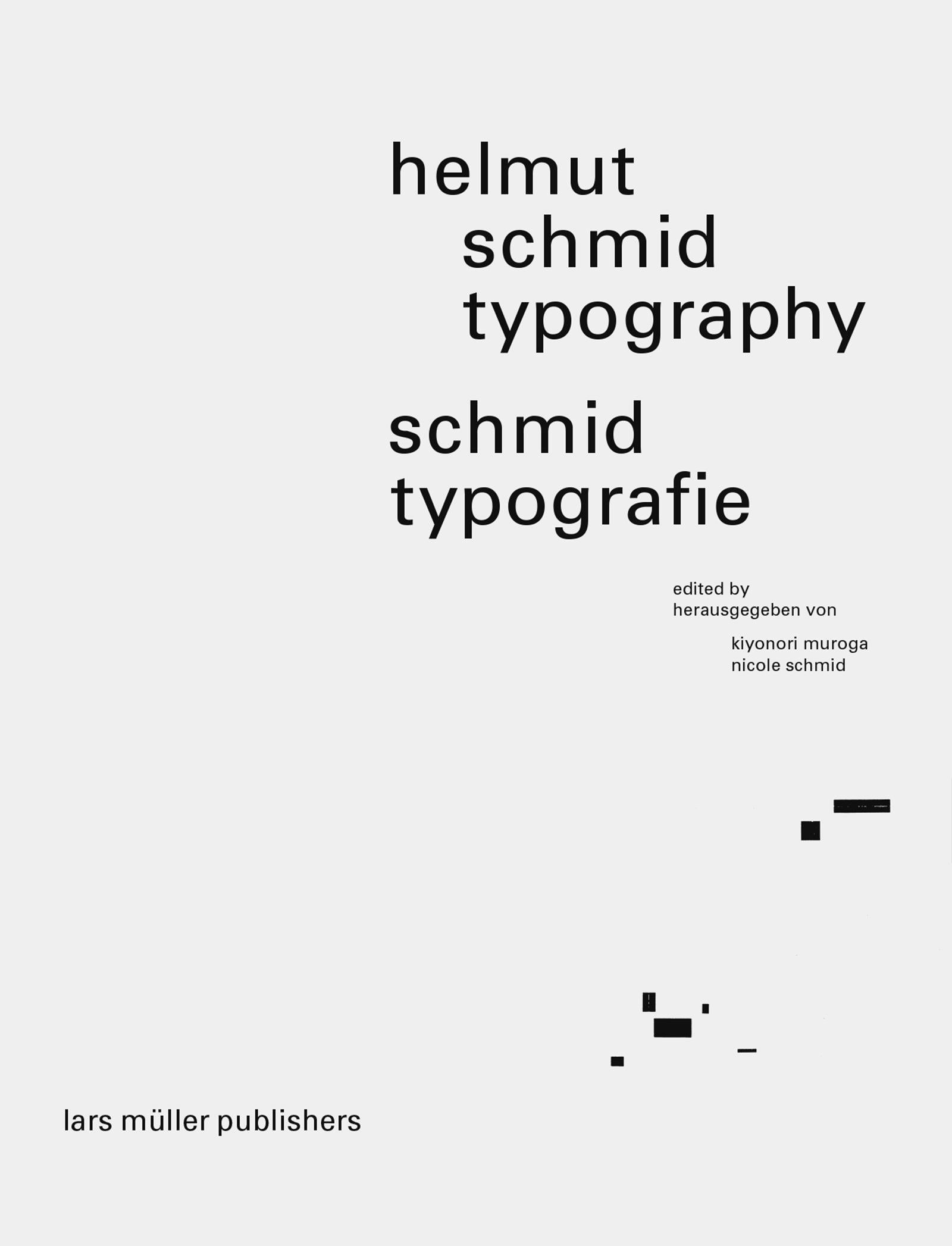
Helmut Schmid Typography - Helmut Schmid Typografie
The Austrian typographer Helmut Schmid was a master of his craft. He put his own spin on Emil Ruder's teachings at the Basel School of Design while remaining faithful to the principles of clarity, simplicity and elegance. Blending eastern and western influences, Schmid honed his skills and put them into practice in the fields of editorial design, packaging of ethical drugs and visual identity of brands such as Pocari Sweat sports drink (Otsuka Pharmaceutical), Maquillage (Shiseido) and IPSA. He also produced independent publications in parallel, such as Typographic Reflections.Helmut Schmid Typography explores the typographer's oeuvre in its entirety. The book's generous design allows each image to breathe, and the accompanying texts narrate Schmid's life and career in an informative and pleasant manner. Complementing the publications Weingart: Typography and Ruder Typography, Ruder Philosophy, this bilingual monograph completes the Basel school of typographic thought.; Der österreichische Typograf Helmut Schmid war ein Meister seines Fachs. Er setzte die Lehren von Emil Ruder an der Schule für Gestaltung Basel gekonnt um und blieb dabei den Prinzipien der Klarheit, Einfachheit und Eleganz treu. Helmut Schmid kombinierte östliche und westliche Einflüsse, entwickelte dabei sein Können weiter und setzte es in den Bereichen der Buchgestaltung, Verpackungen für ethische Medikamente und visuellen Identität von Marken wie Pocari Sweat Sportgetränk (Otsuka Pharmaceutical), Maquillage (Shiseido) und IPSA um. Parallel dazu hat er auch unabhängige Publikationen wie Typographic Reflections herausgegeben.Helmut Schmid Typografie dokumentiert gekonnt das Gesamtwerk des Typografen. Das grosszügige Layout des Buches lässt dem Bild Luft. Begleittexte erzählen auf informative und angenehme Weise Schmids Leben und Karriere. Als Ergänzung zu den Publikationen Weingart: Typography und Ruder Typography, Ruder Philosophy vervollständigt diese zweisprachige Monografie die Basler Schule des typografischen Denkens.; Zweisprachige Ausgabe